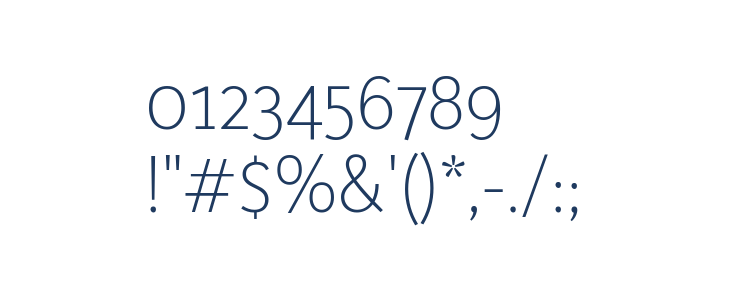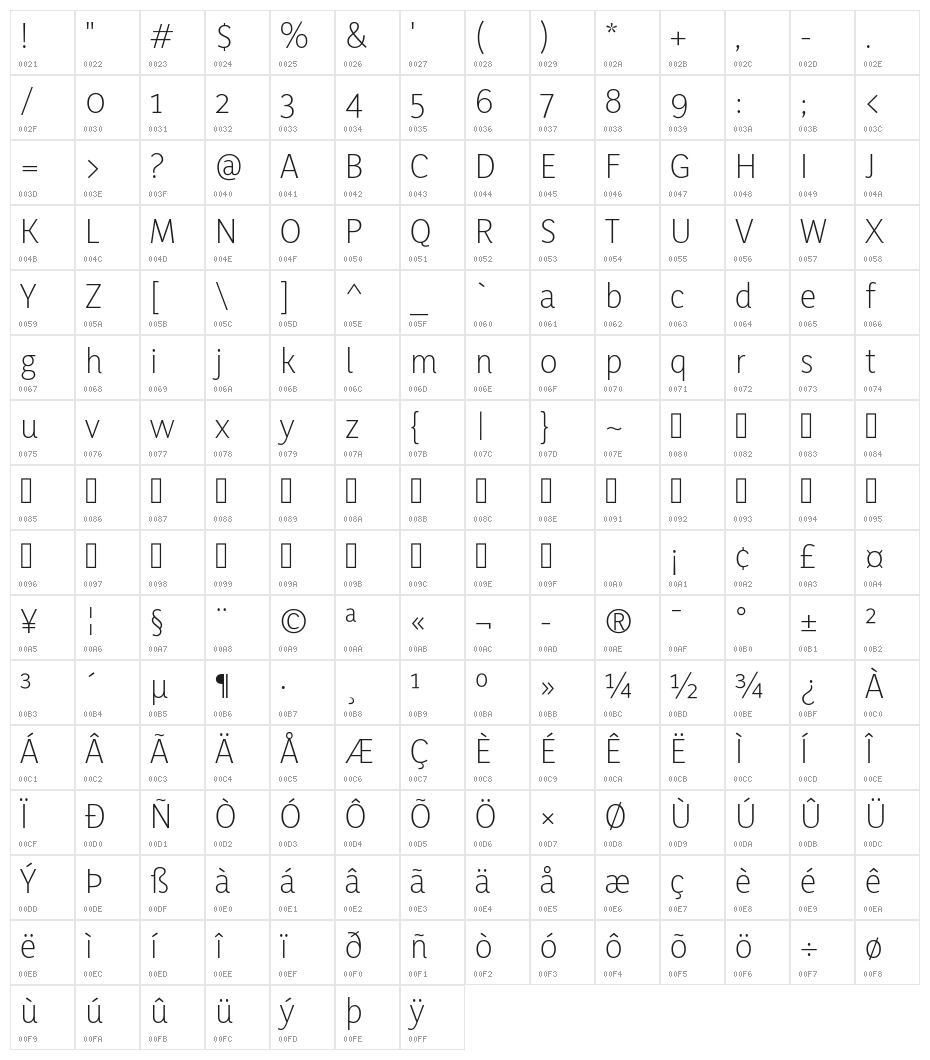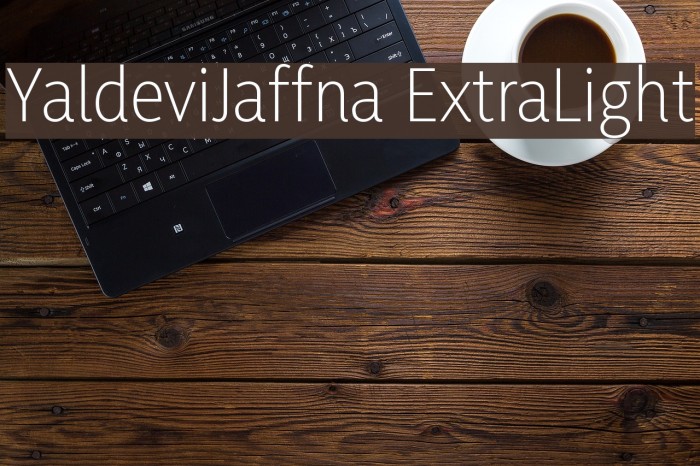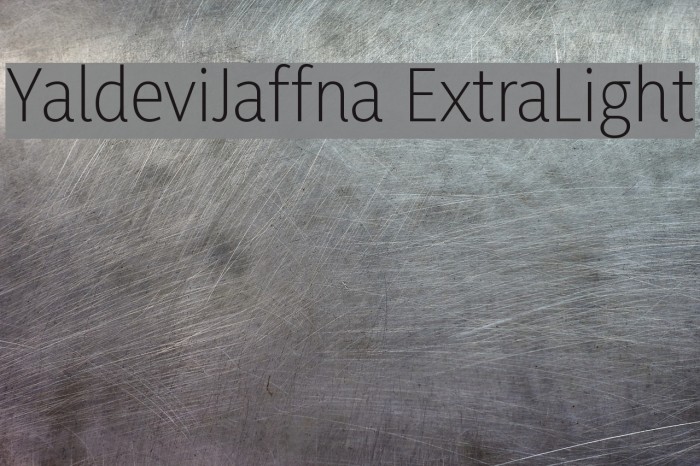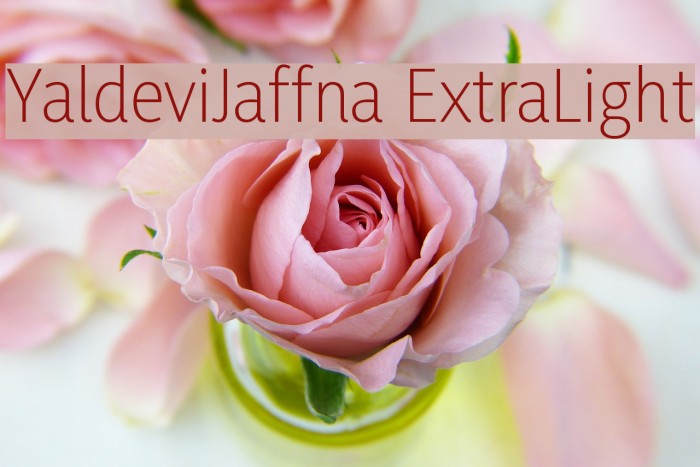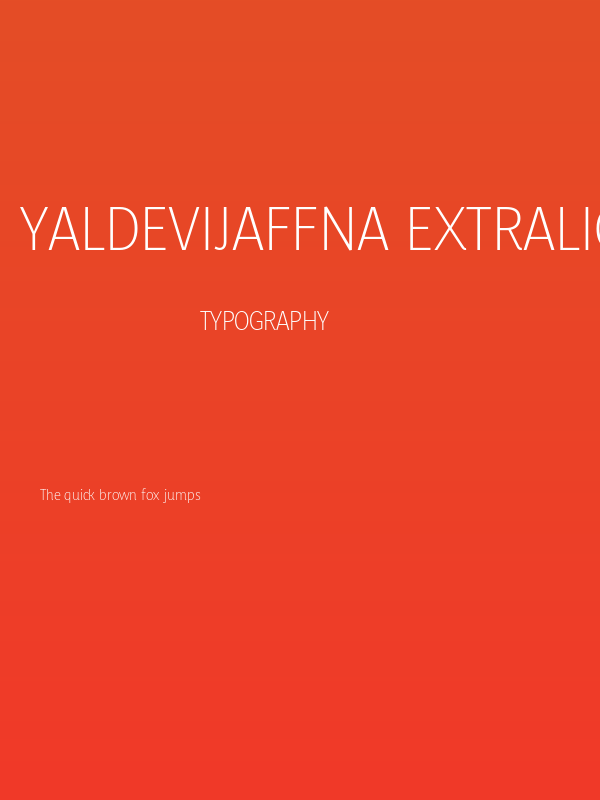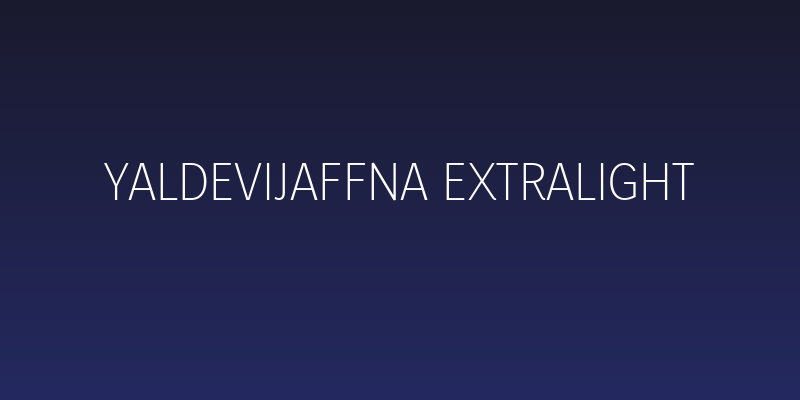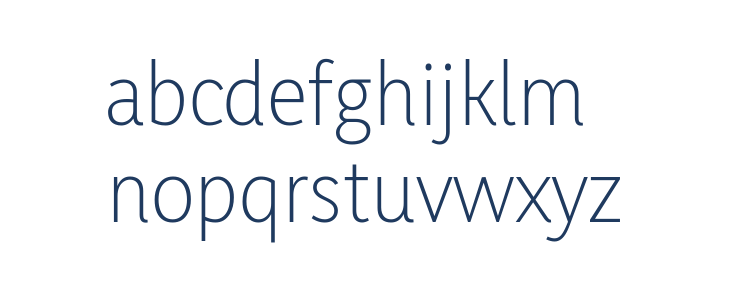
YaldeviJaffna ExtraLight Font
YaldeviJaffna ExtraLight Description
This font exhibits a clean and modern aesthetic with a focus on readability and simplicity. The characters are well-proportioned, featuring a uniform stroke width that contributes to its minimalist appeal. The uppercase and lowercase letters maintain a consistent style, while the numerals and special characters are designed to complement the overall look. The font's extra light weight gives it an airy and elegant feel, making it suitable for a variety of design applications where a subtle yet sophisticated touch is desired.
| Proposed Projects | Ideal for use in digital interfaces, minimalist branding, editorial layouts, and modern web design. |